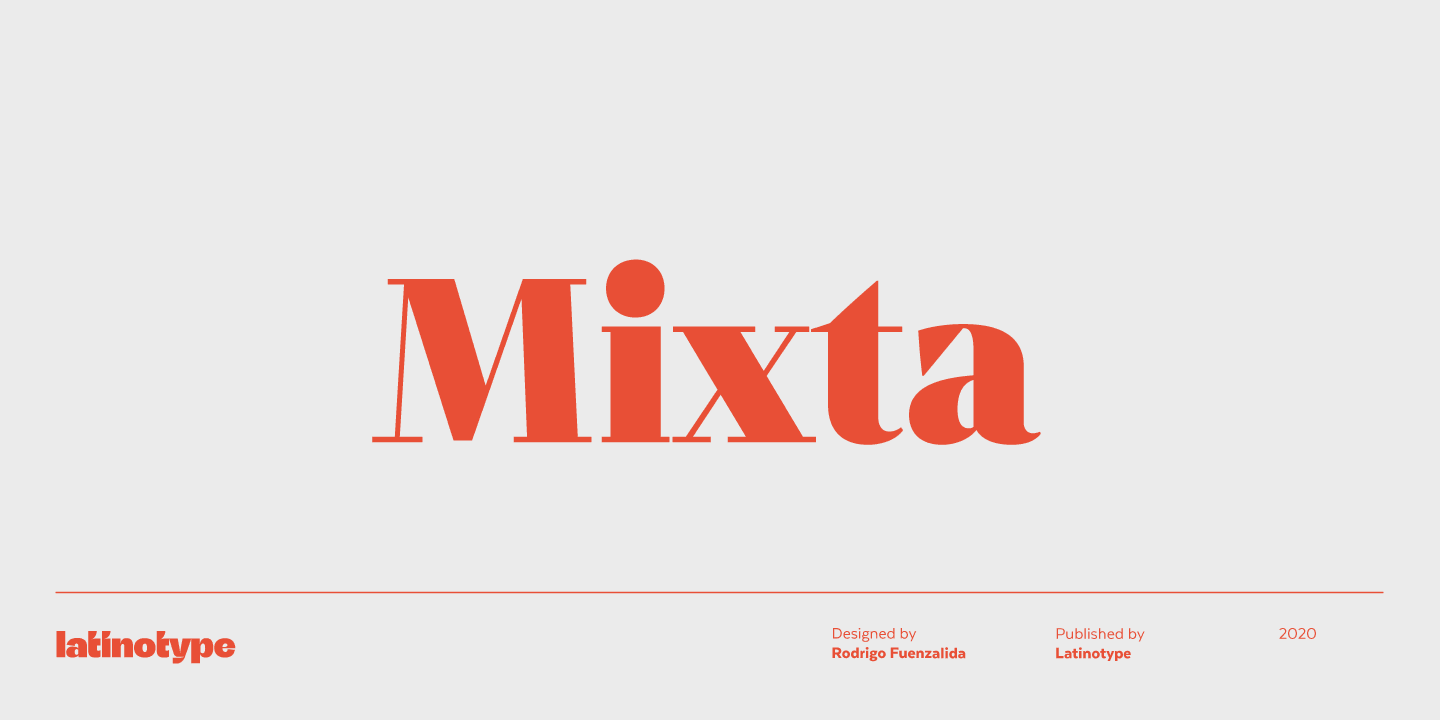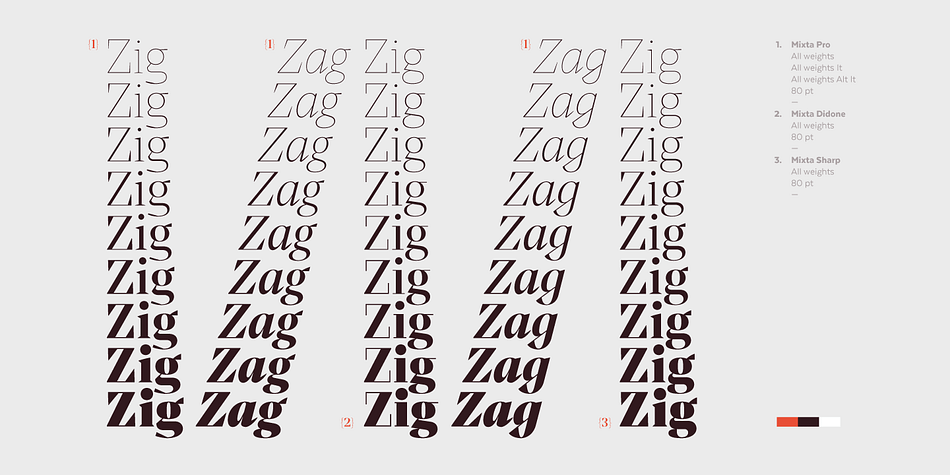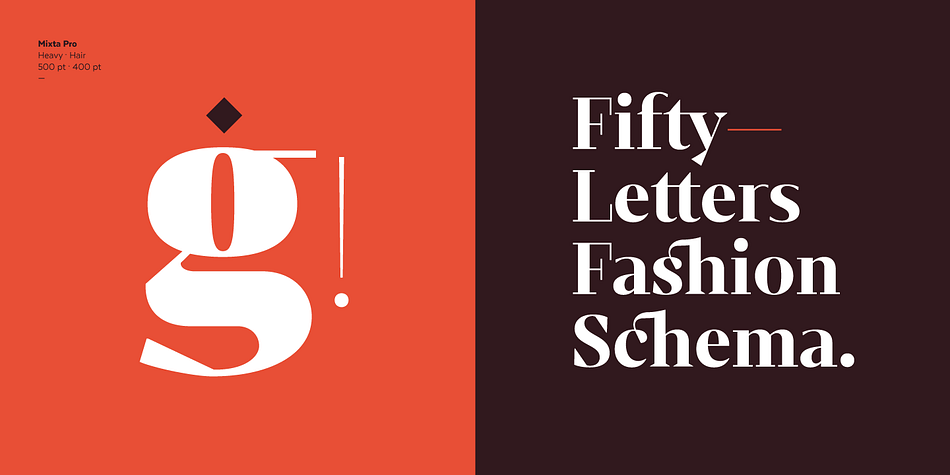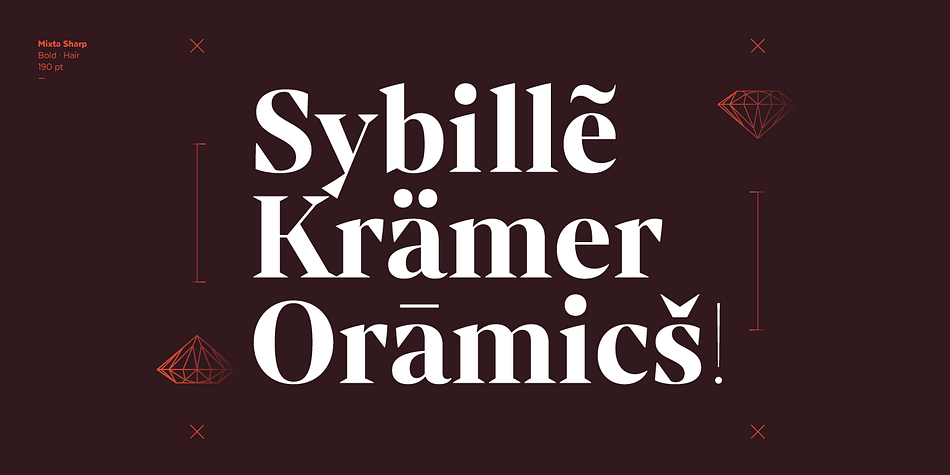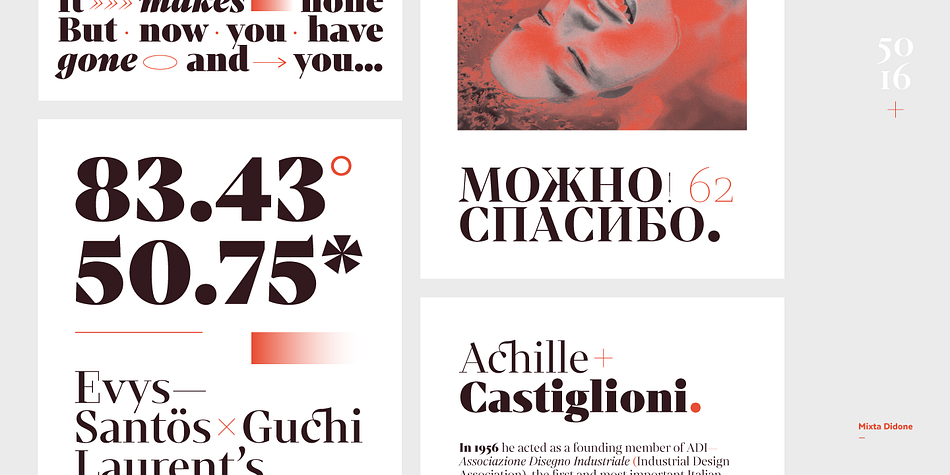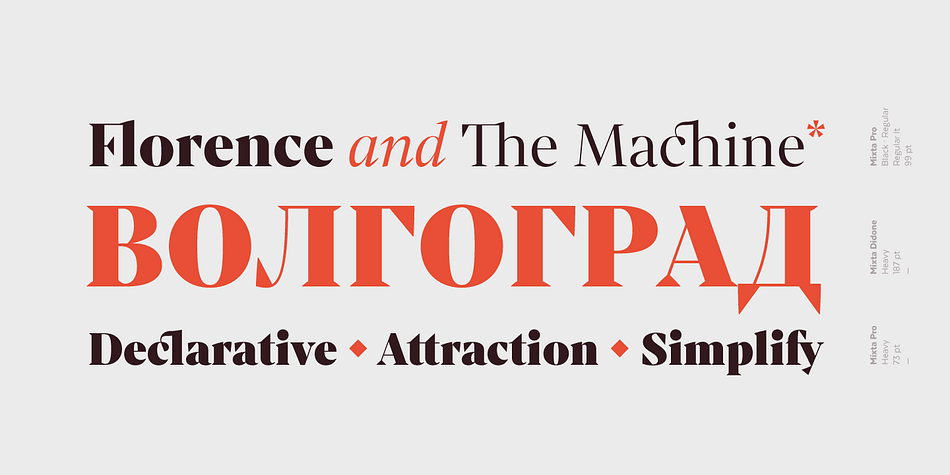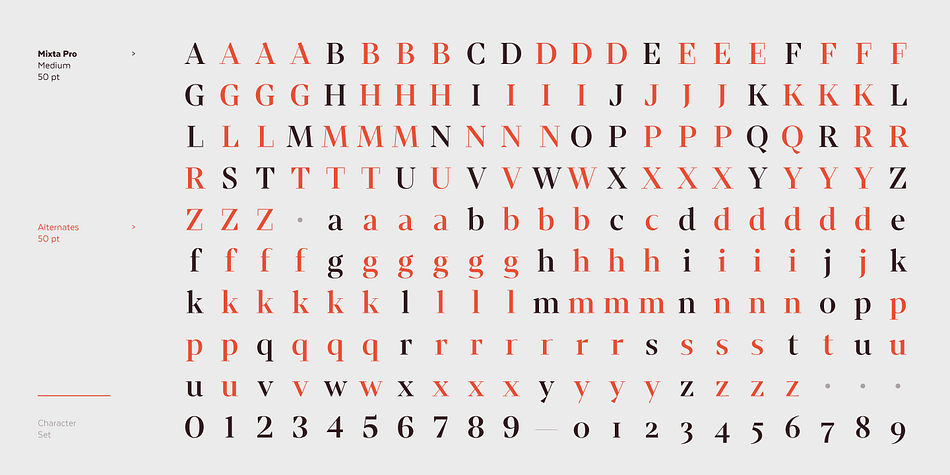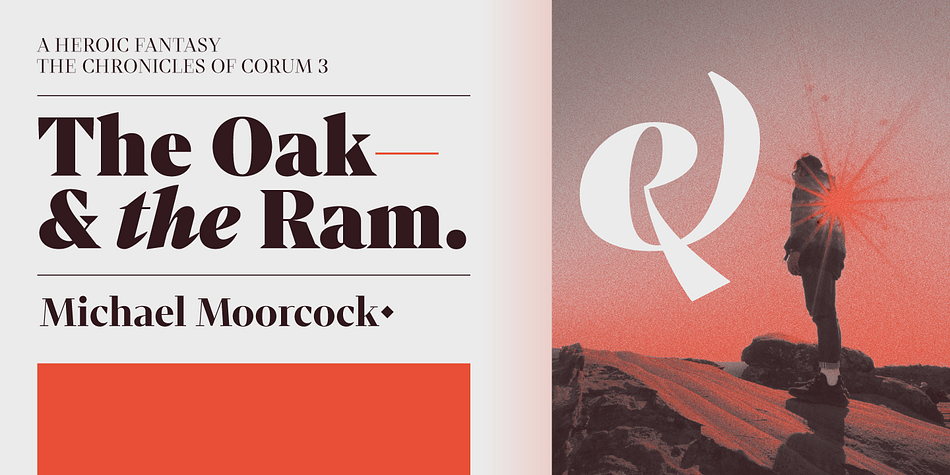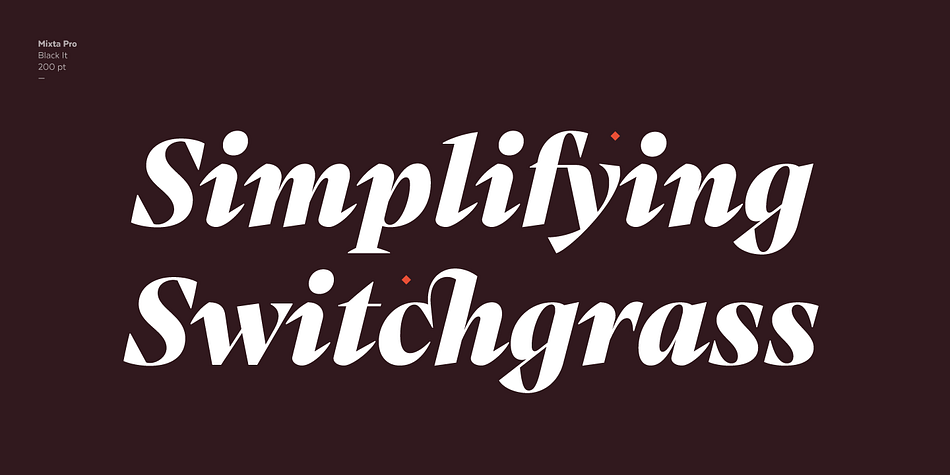
Designed by Rodrigo Fuenzalida, Mixta is a serif font family. This typeface has fifty-four styles and was published by Latinotype.
Mixta is a contemporary sans-serif typeface with characteristic and defined features. This font was inspired by the idea of mixing different types of terminals in order to give the font a singular appearance. Its design is composed of diverse styles such as Didone and contemporary faces.
Create unique designs by combining any of the upright weights with matching italics. Mixta includes Cyrillic support, small caps, different types of figures and a wide variety of alternates.
Mixta comes with a set of 1,200 characters that support over 200 Latin-based languages. This font was specially designed for branding, advertising, editorial design, and use on Tv and social media.